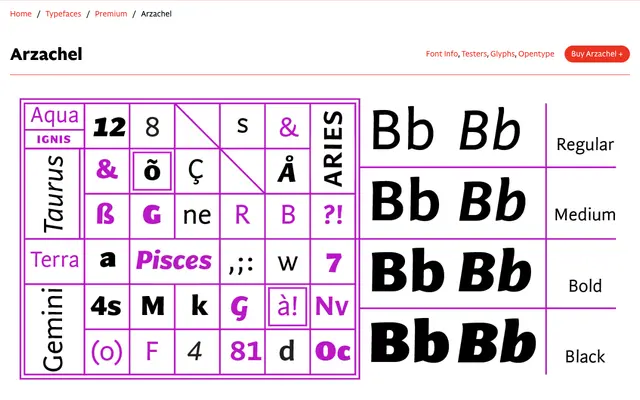
Arzachel
CAST · Riccardo Olocco · 2017
A humanist sans by Riccardo Olocco with flared stem terminations, gently sloped romans and inscriptional capitals that hold up equally well at text and display sizes.
Designed to companion Zenon and first used in print while still in development, Arzachel carries several deliberate details: romans that are lightly sloped across all styles, letter terminals that widen outward, and capitals with a quiet inscriptional quality. Contrast stays low in lighter weights but becomes pronounced in the Black. Four weights with matching italics give publishers and editorial designers a compact but characterful range.
Described explicitly as a humanist sanserif; organic letter forms, flared stem terminations, inscriptional capitals and low-to-moderate contrast all point firmly to the humanist sans tradition.